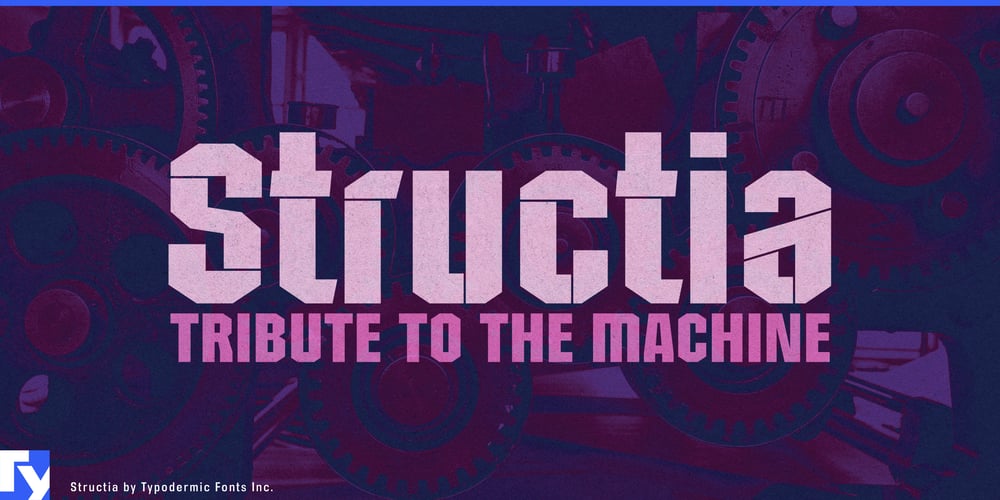
Structia Font Family was designed by Ray Larabie and published by Typodermic. Structia contains 4 styles and family package options. In a world where communication often feels ephemeral, Structia emerges as a typeface that demands permanence. Drawing inspiration from the uncompromising ethos of brutalist architecture, this font family carves out its own space with unapologetic precision and raw aesthetic power.Structia’s essence lies in its mechanical accuracy—every line, curve, and chamfered corner calculated with scientific rigor. It’s a typeface that doesn’t merely suggest clarity; it insists upon it. The result is a visual language that speaks of industrial strength, technological advancement, and unwavering certainty. From sleek corporate identities to cutting-edge tech interfaces, Structia provides the backbone for designs that need to convey authority and innovation in equal measure. But Structia is more than just a utilitarian tool. There’s an unexpected elegance in its stark forms—a cold beauty that emerges from its perfect geometries. This juxtaposition of harshness and refinement makes Structia remarkably versatile, equally at home in avant-garde art galleries and aerospace engineering schematics. Its two effect styles—Panel and War—push the boundaries even further. Panel evokes the sleek control panels of a futuristic spacecraft, while War tells a story of resilience, its battle-damaged letterforms standing defiant against cosmic conflict. In an era where design often leans towards the soft and organic, Structia stands as a bold counterpoint. It’s a typeface for those who aren’t afraid to make a statement, for brands and projects that demand to be noticed and remembered. And yet, for all its commanding presence, Structia never loses sight of its primary function: clear, effective communication. This adaptability extends to its linguistic reach. Structia speaks volumes across borders, supporting an extensive range of Latin-based European languages and venturing into Cyrillic territory. From the streets of Sofia to the fjords of Norway, Structia ensures your message retains its power and precision, no matter where it lands.Choose Structia when you need typography that doesn’t just complement your design—but elevates it. It’s a declaration of intent, a commitment to clarity, and a bridge between the brutalist past and our technological future. In a world of fleeting trends, Structia stands resolute—ready to give your ideas the enduring impact they deserve.